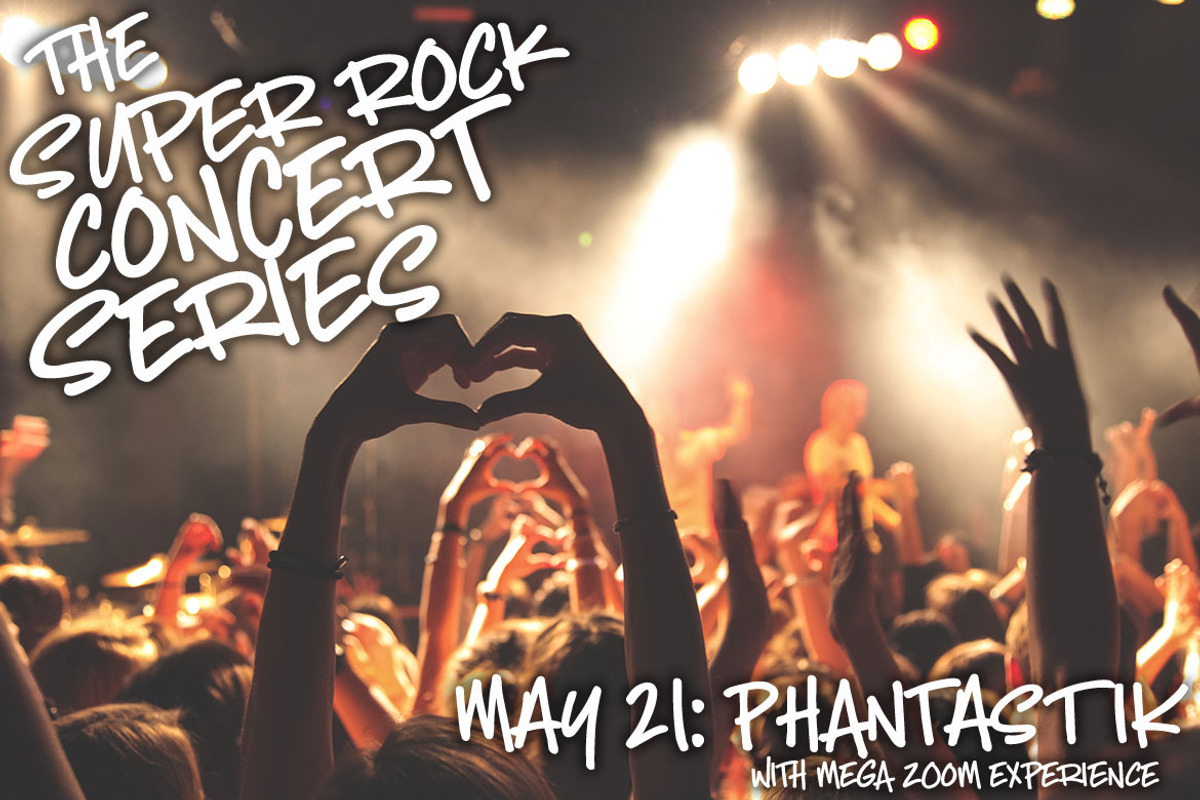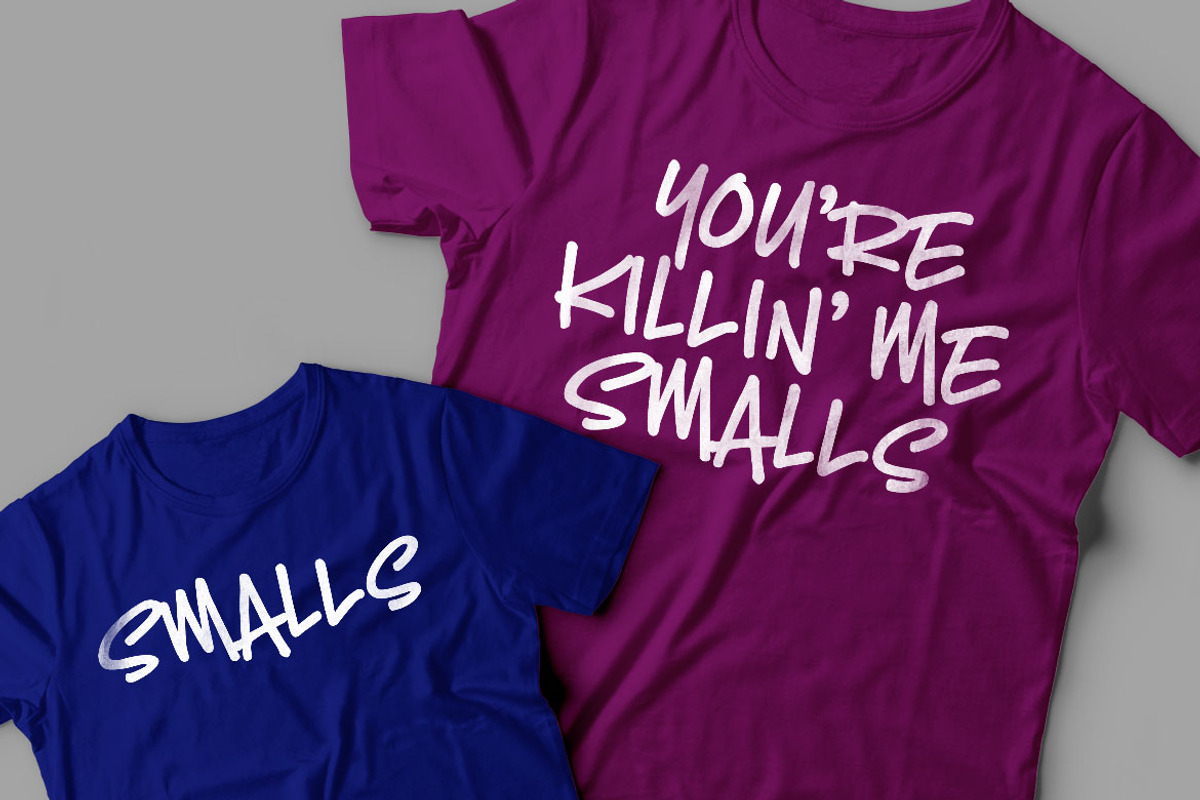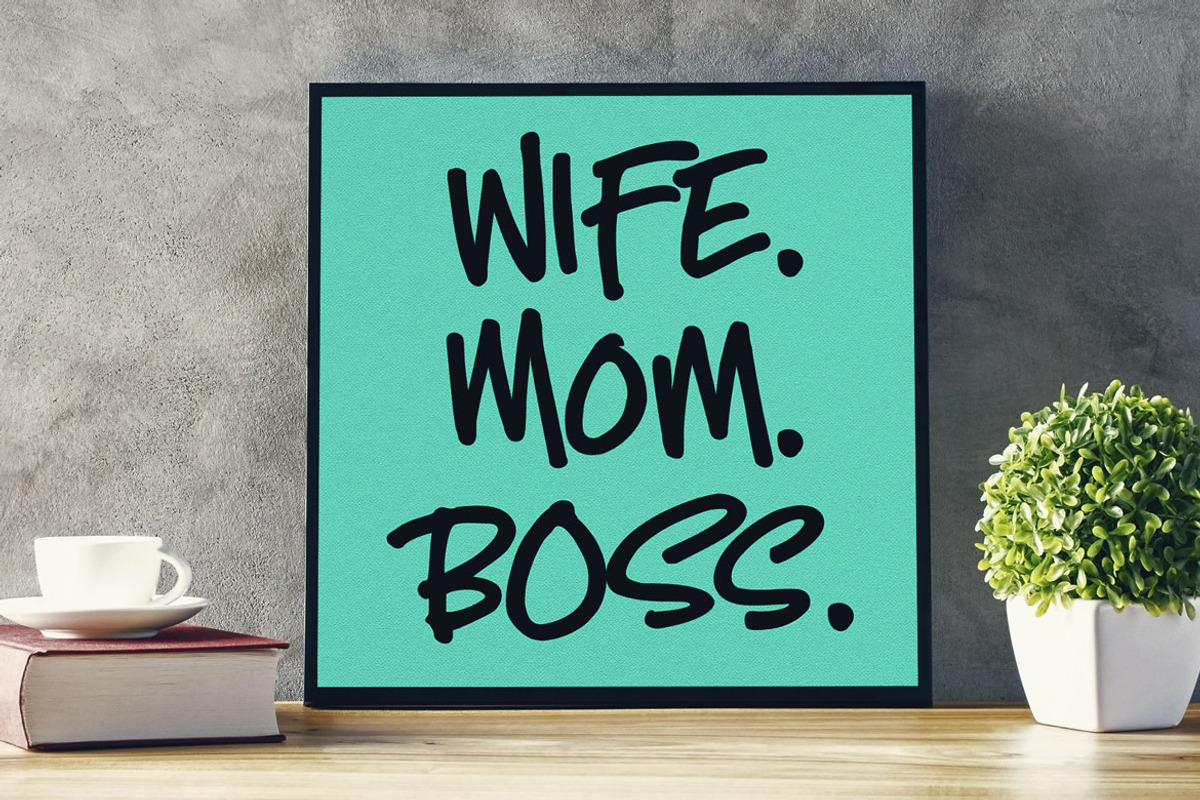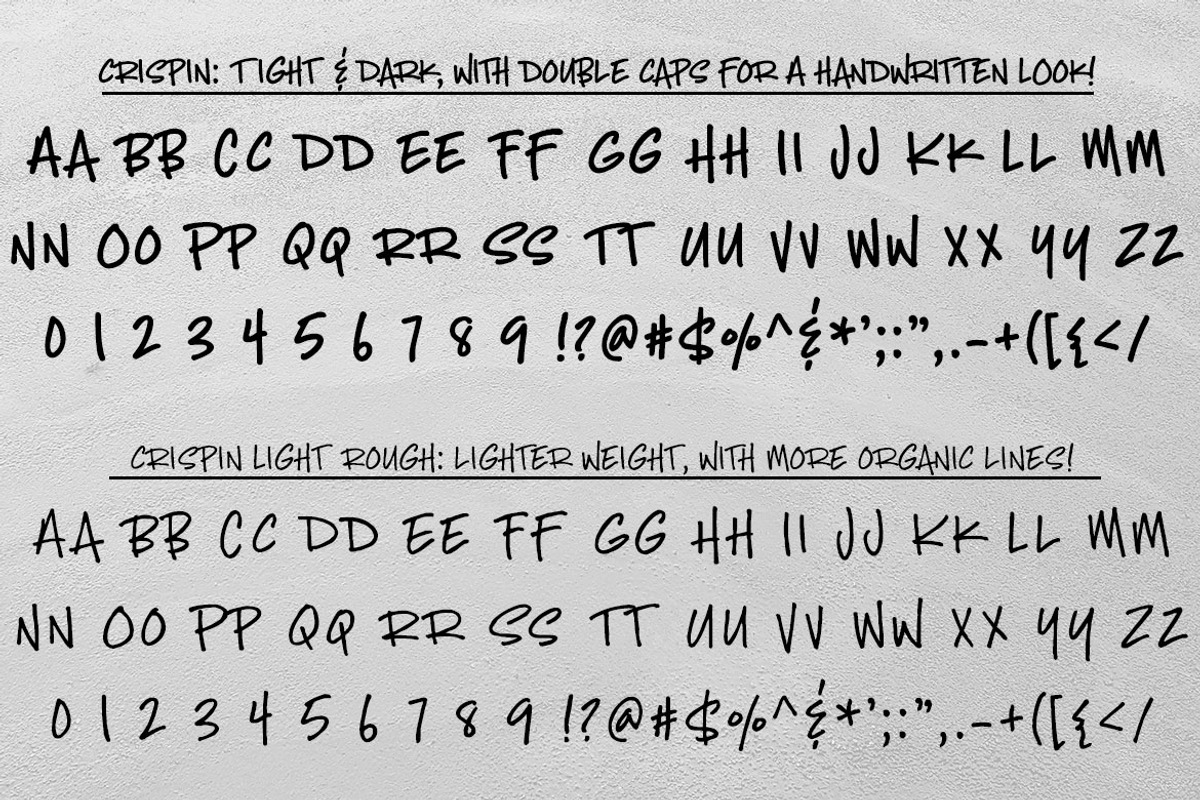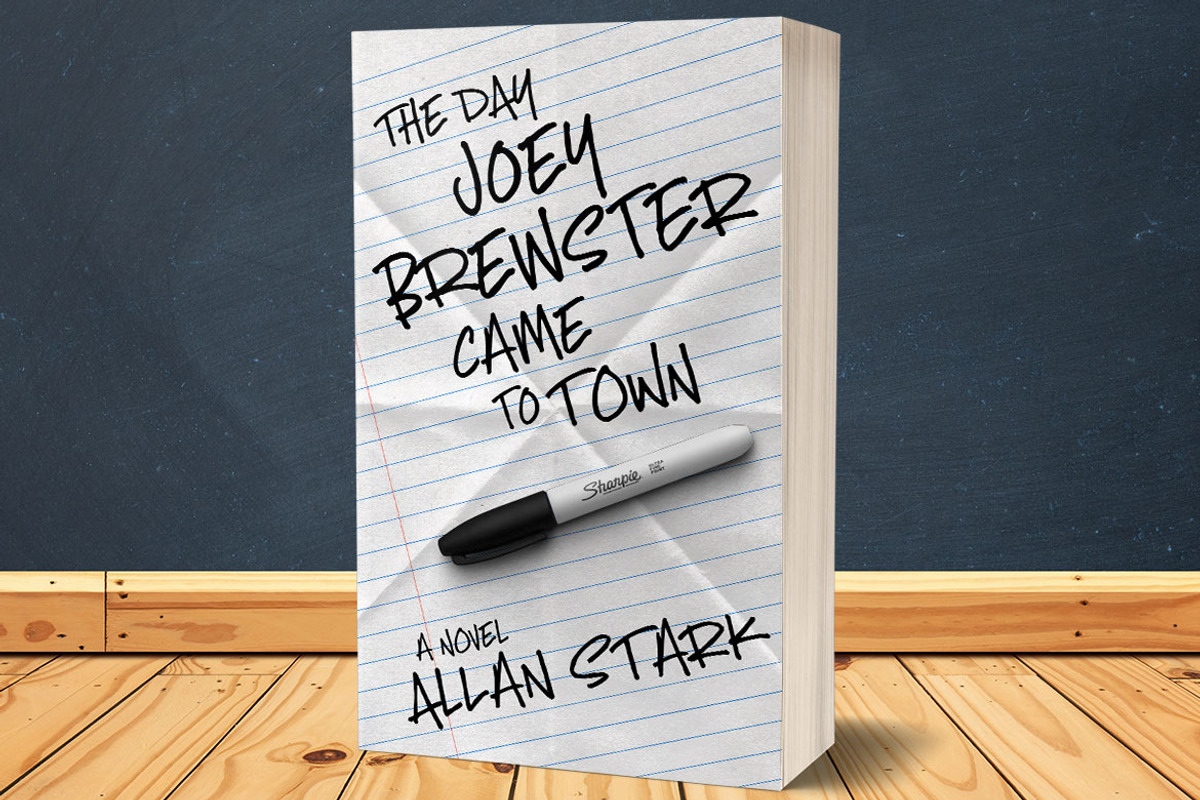
Crispin: handwritten marker font
Crispin: handwritten marker font by Missy Meyer is a font selected for branding, posters, packaging, typography.
- Crispin is a double-caps font: one set of capital letters mapped to the uppercase, and a second set of caps mapped to the lowercase.
- As with all of my fonts, these come with a ton of punctuation, as well as over 200 accented characters for language support!
Why Crispin: handwritten marker font is worth a look
Crispin: handwritten marker font by Missy Meyer fits naturally into Branding, posters, packaging, typography.